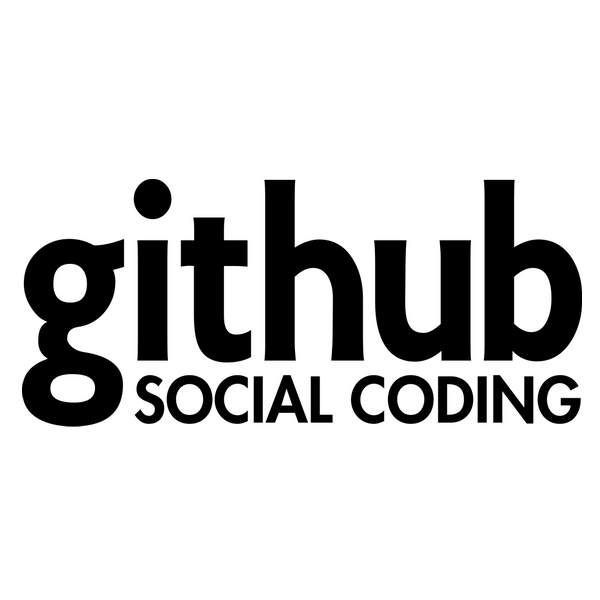
Github Font
Fonts in UseGithub is a web-based platform for version control and collaboration that allows developers to host and review code, manage projects, and build software together.
The Github logo uses the sans-serif font Collegiate, designed by K-Type and inspired by the lettering on Liverpool Collegiate School's mosaic tile badge. This font is available for free download from the Fonts Used Section. The slogan "Social Coding" is written in Futura Heavy, which is a commercial font created by Paul Renner.